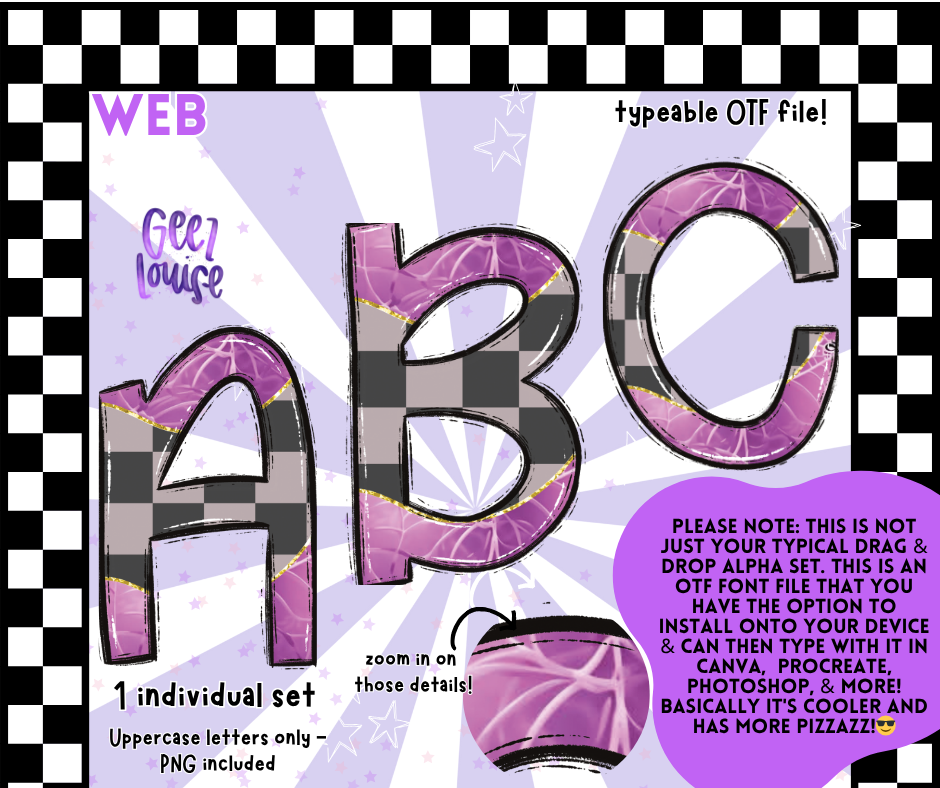
Web OTF Font + PNG Alpha Set (Plaid + Purple Spiderweb)
Plaid meets creepy in the Web font — the perfect mix of spooky season vibes and gothic glam. With a bold black-and-gray plaid base and purple spiderweb overlay, this set is a Halloween essential for moody makers and witchy creatives alike.
🕸️ Uppercase letters only
🕸️ Distressed edges, stitched seams, and hauntingly cute flair
Whether you're creating boo baskets, creepy cute merch, or spellbinding SVGs — this font is it.